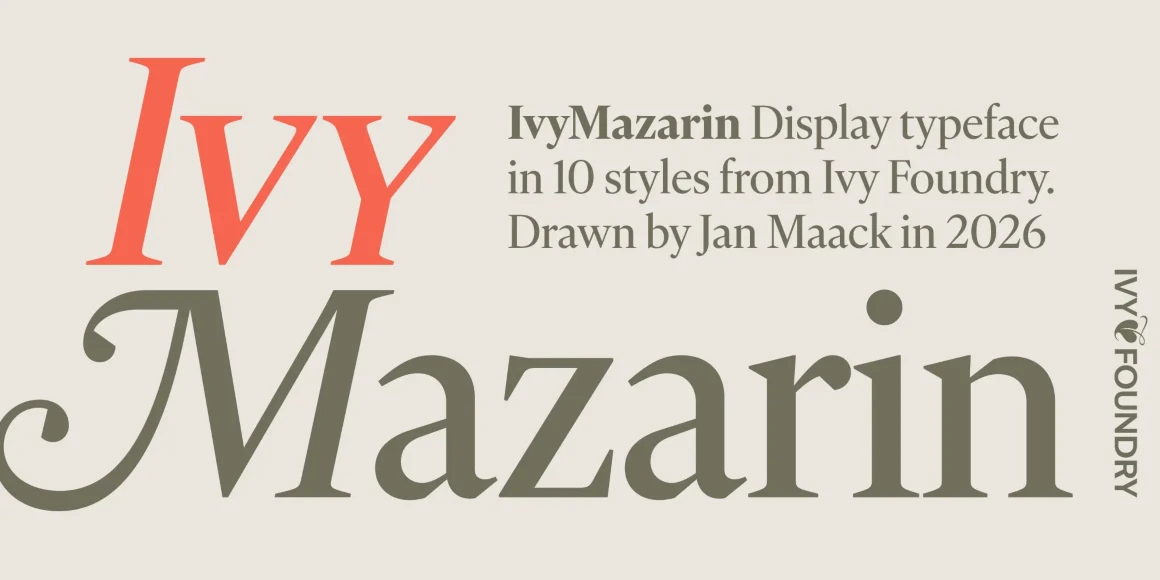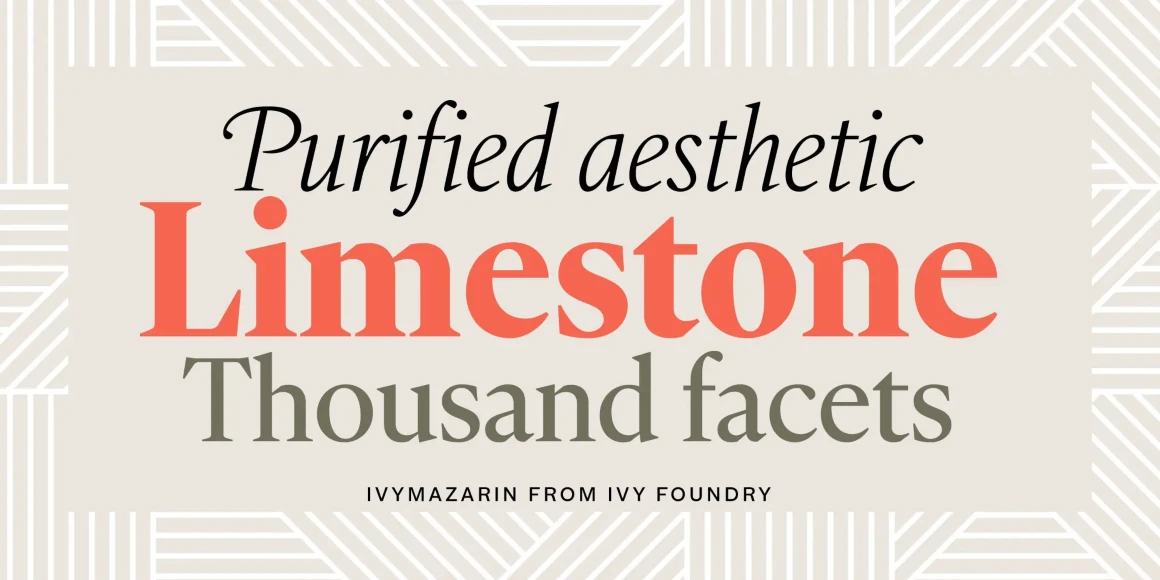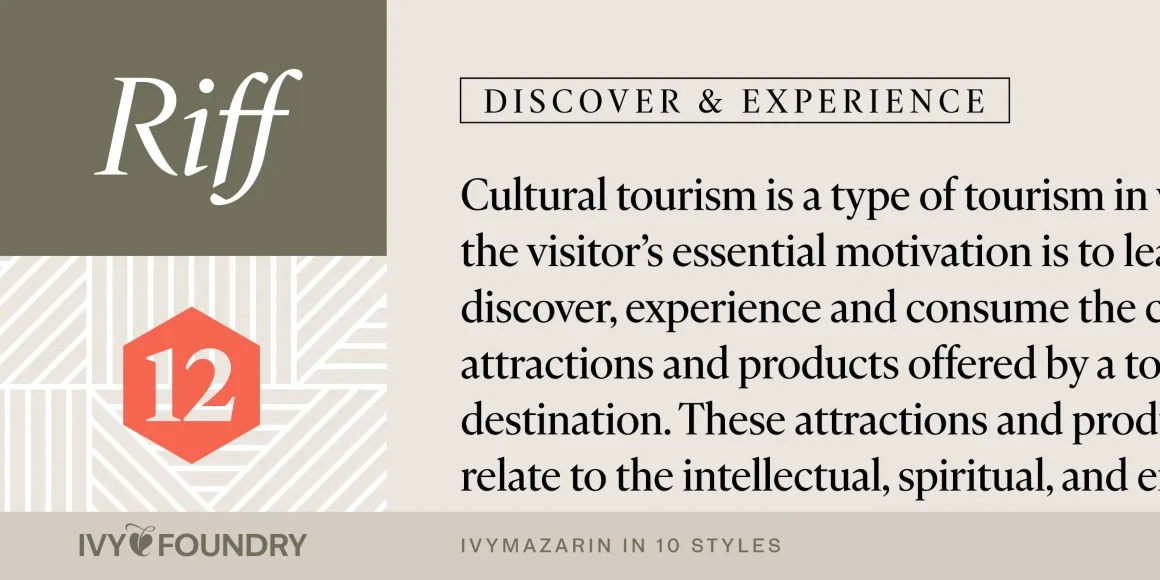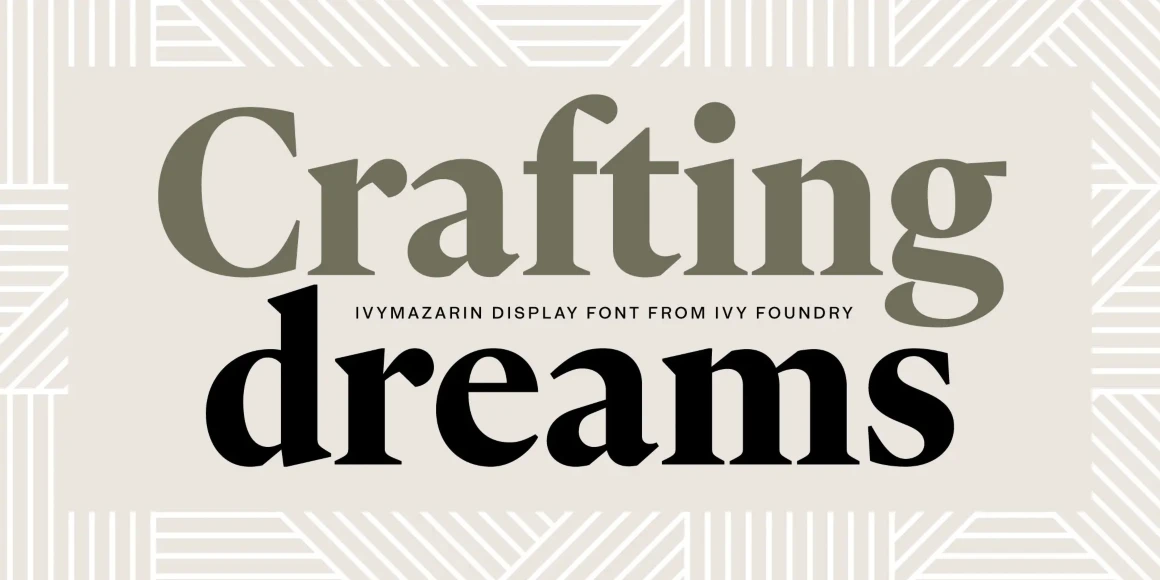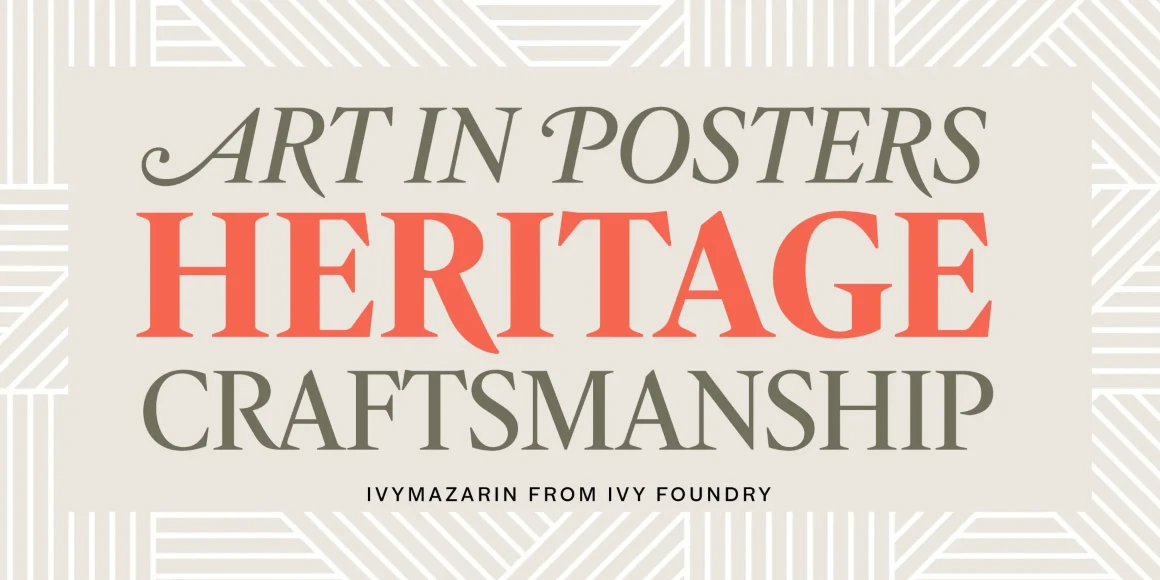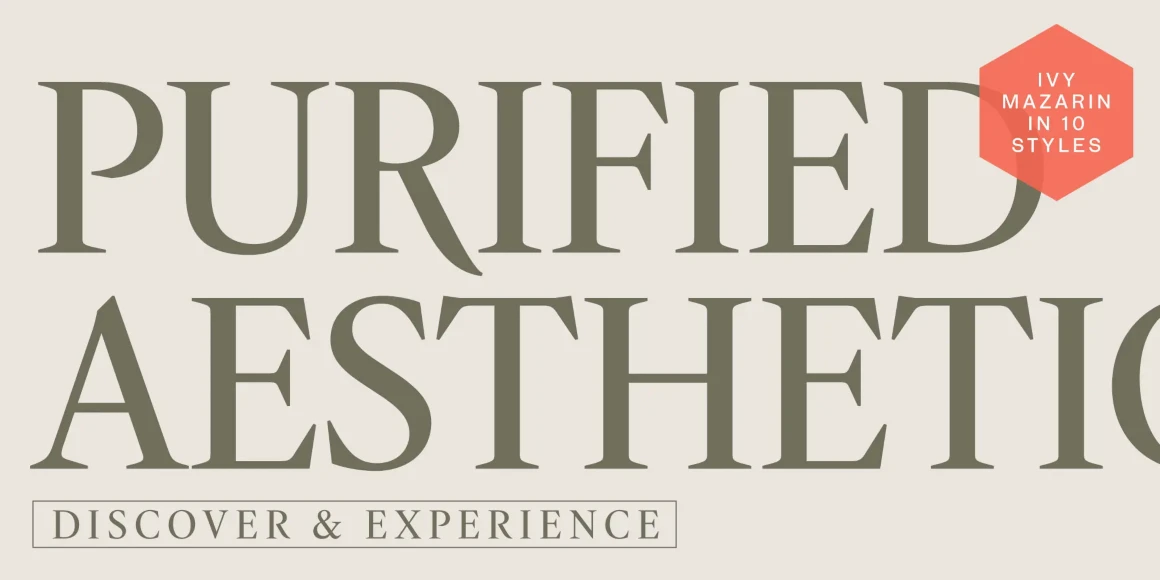
IvyMazarin
From Ivy Foundry
IvyMazarin is a 2026 revival of Astrée, Robert Girard’s distinctly French interpretation of Garamond, first released in 1921 and later issued by Stephenson Blake as Mazarin. Working from rare archival specimens, Jan Maack preserves the original’s cool crispness — especially in the italics — while refining the proportions, raising the x-height, moderating the ascenders, and setting the italics at a confident 12°. Historical details remain available as features, including a long-legged R, alternate Q, swashes, and small caps.
IvyMazarin Big reimagines Girard’s design in classic news proportions: narrower, sharper, more tightly spaced, with an even larger x-height. Together, the two optical sizes span branding, editorial design, and book typography, bringing refined character and a precise, incisive edge from text to headline scale. Available in five weights with matching italics, and Roman and Italic variable fonts.
Designed by Jan Maack